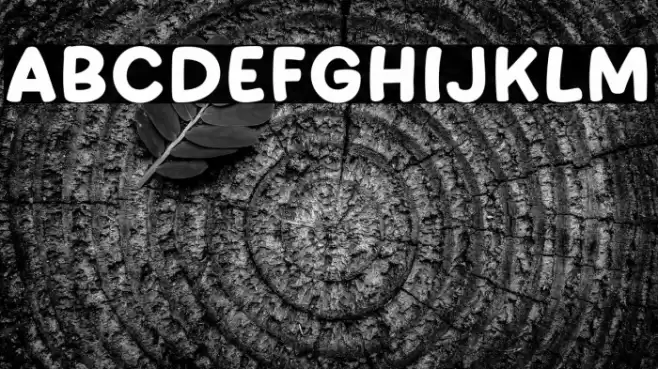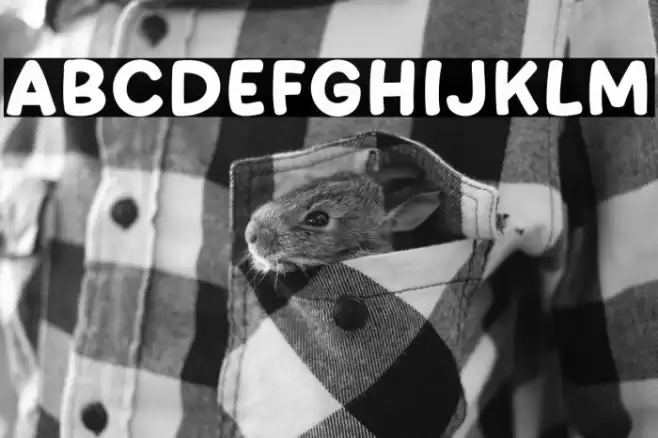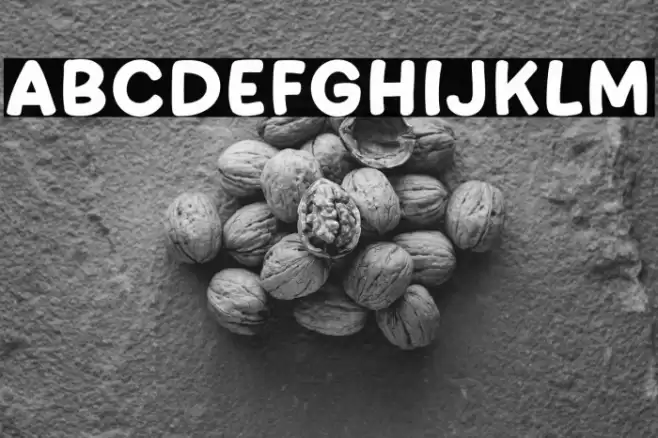
This playful and rounded font features bold, smooth curves that convey a sense of fun and approachability. The characters are uniformly thick, with a consistent stroke width that maintains a friendly and informal appearance. The rounded edges and lack of sharp angles give it a soft, welcoming feel, making it ideal for projects that aim to be engaging and accessible. The font includes a full set of uppercase and lowercase letters, numbers, and a variety of special characters, ensuring versatility in design applications. Its boldness ensures readability, while the rounded forms add a touch of whimsy.
A playful, rounded font with bold, smooth curves and a friendly appearance from Uncategorized fonts.
- Proposed Projects: Ideal for children's books, playful branding, casual invitations, and educational materials.
- Overall Style: Playful
- Use Case: Headlines, Logos, Informal Text